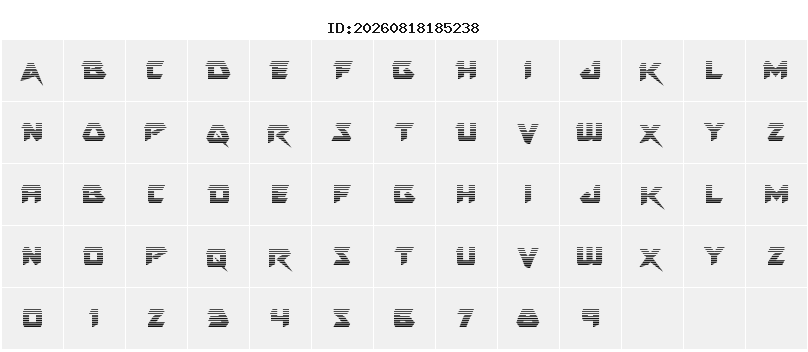
Skirmisher Gradient Preview
• Font Name: Skirmisher Gradient
• Full Font Name: Skirmisher Gradient
About Skirmisher Gradient.ttf
Skirmisher Gradient.ttf is a modern, elegant sans-serif font designed for ultimate readability and visual harmony. Perfect for branding, headlines, web design, and print materials.